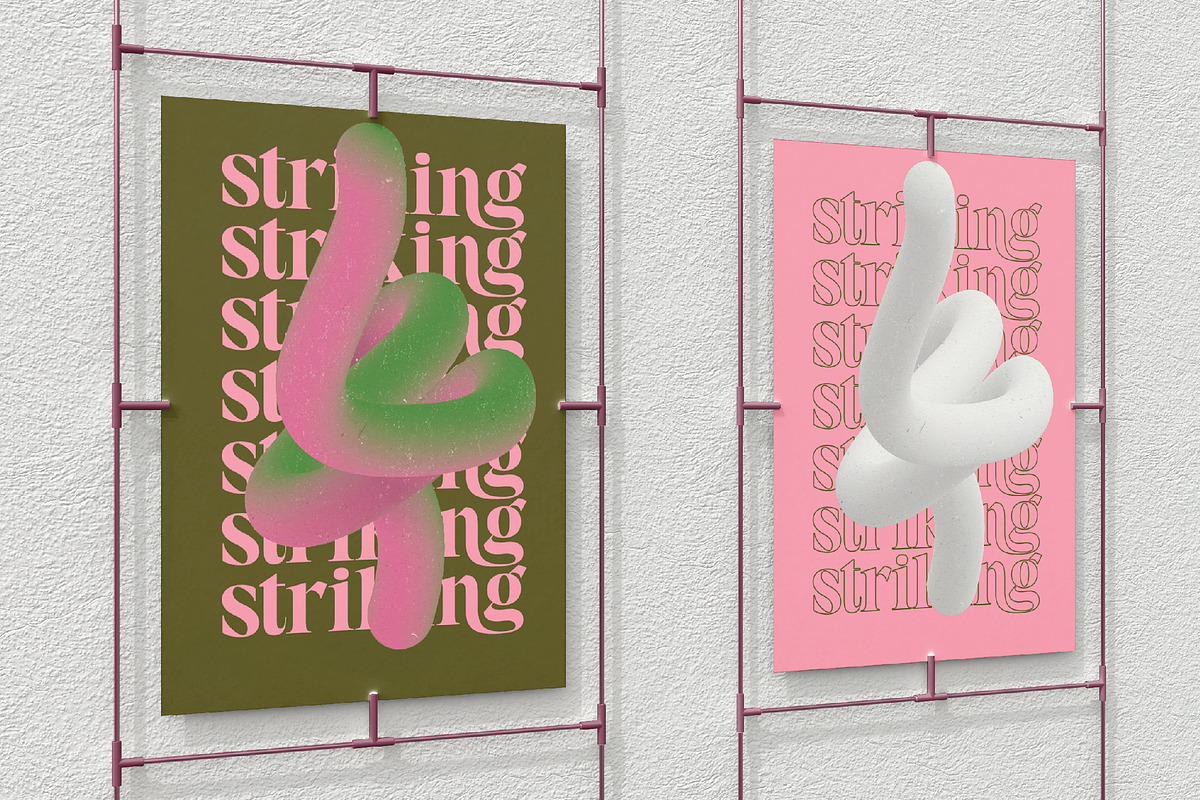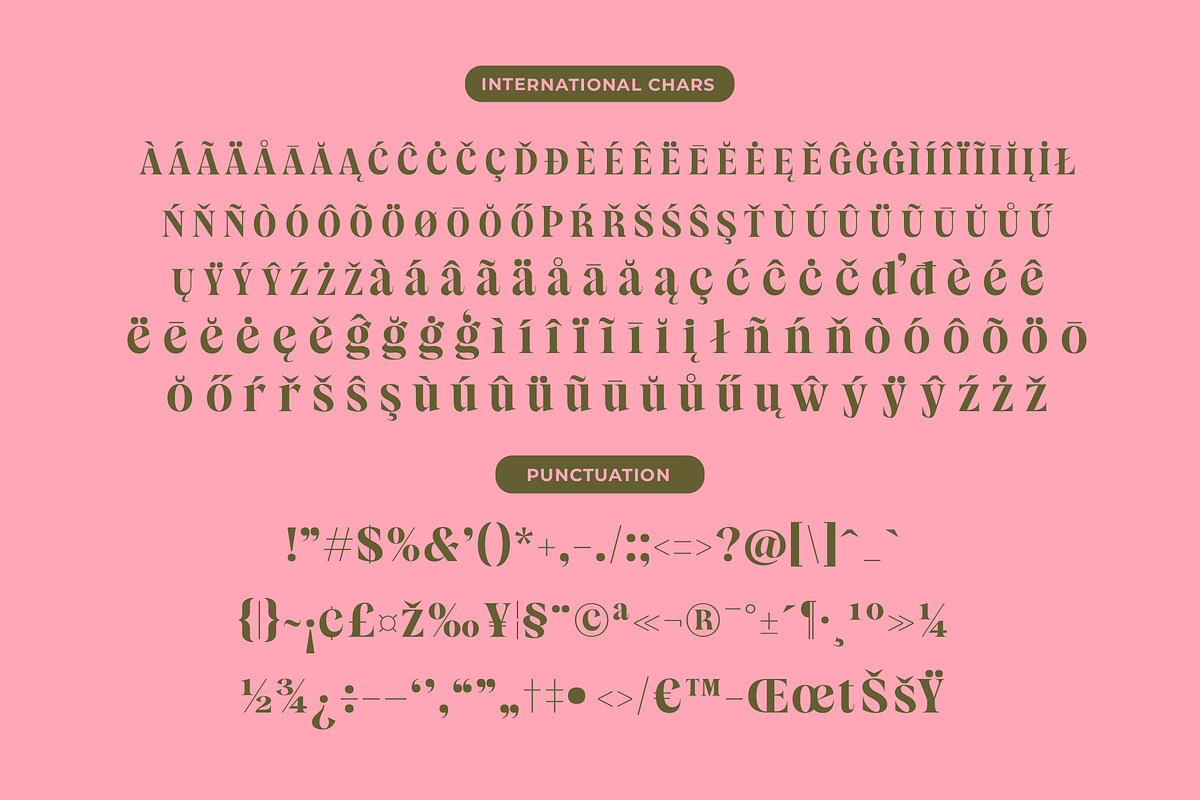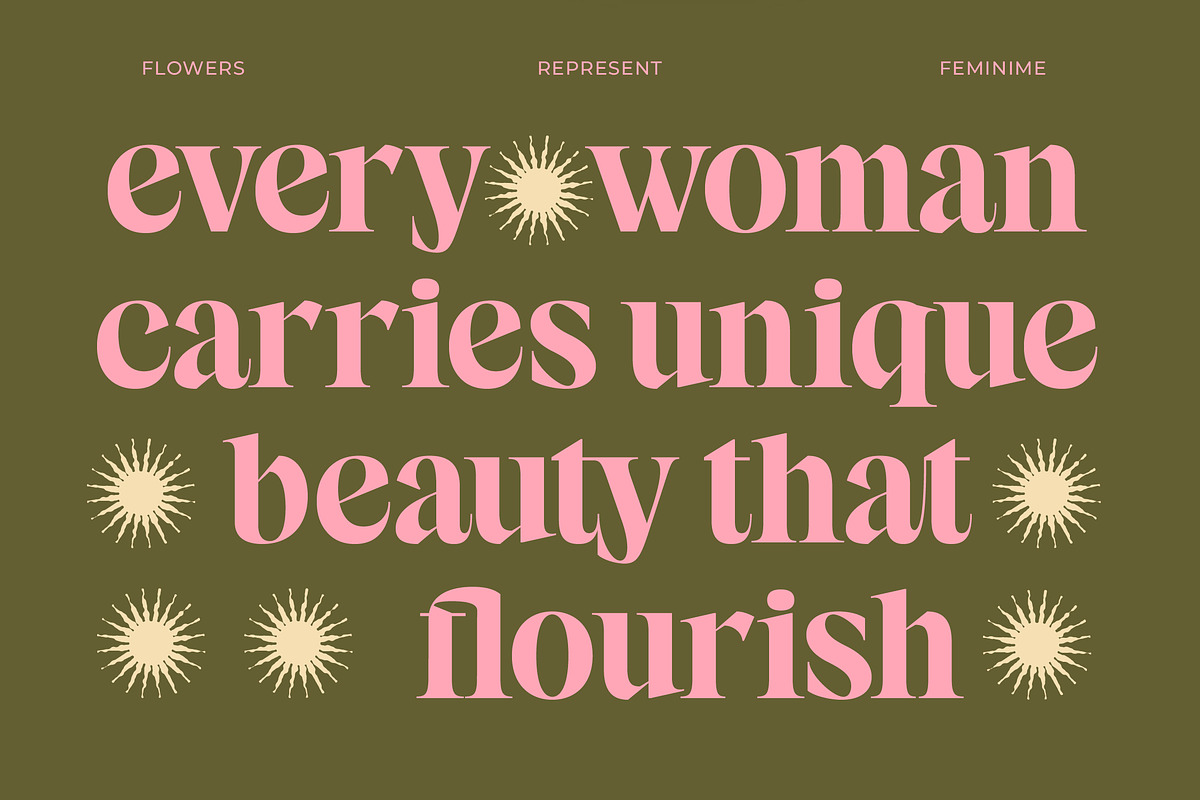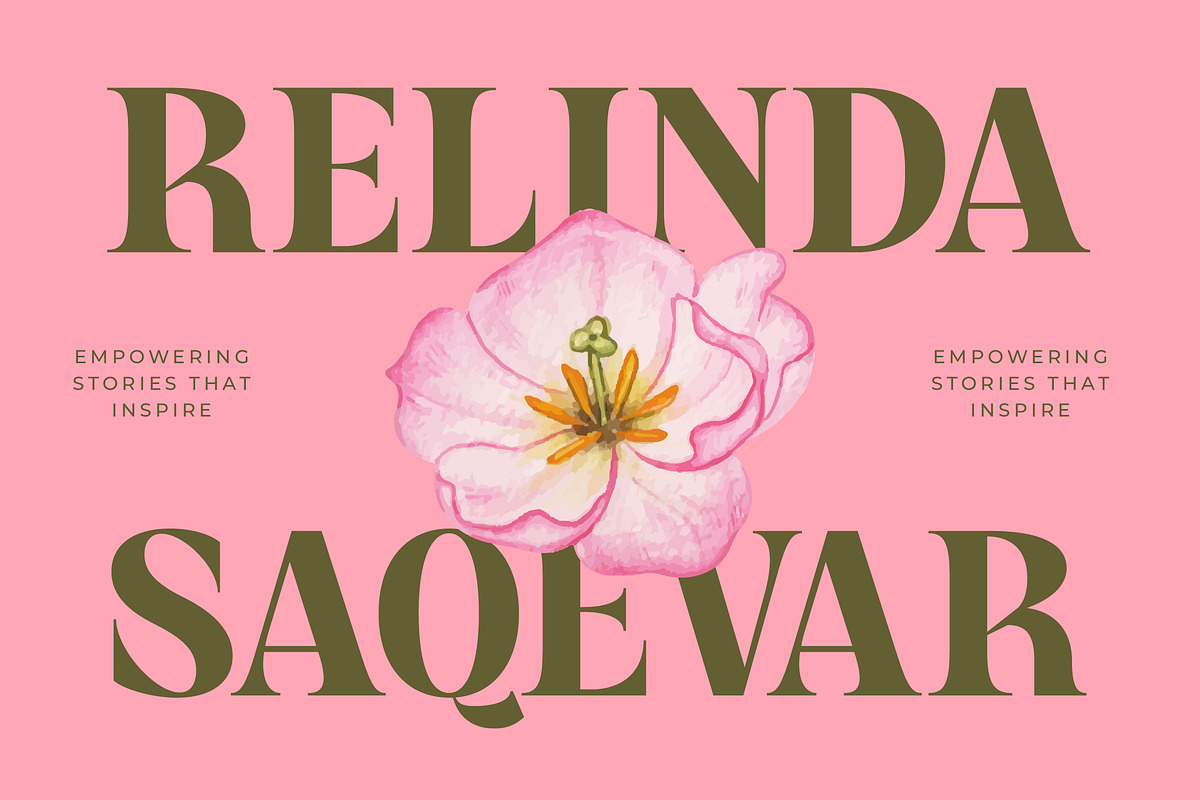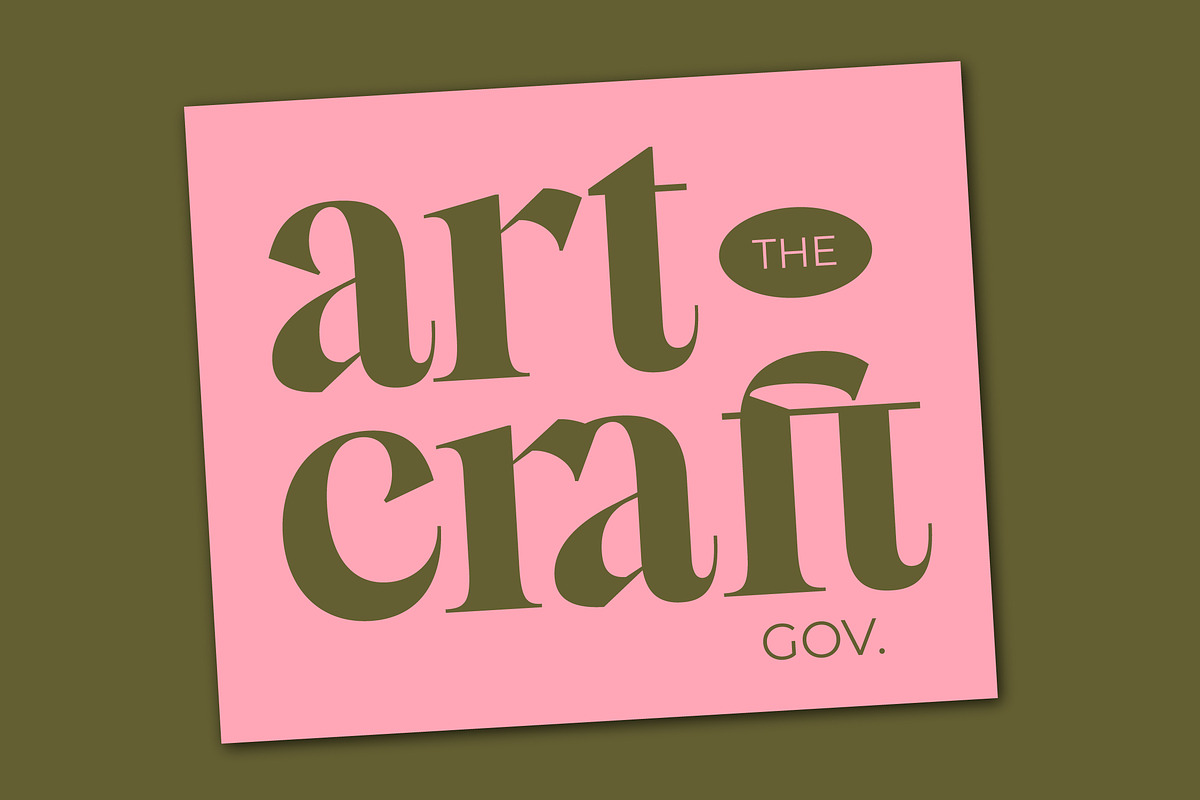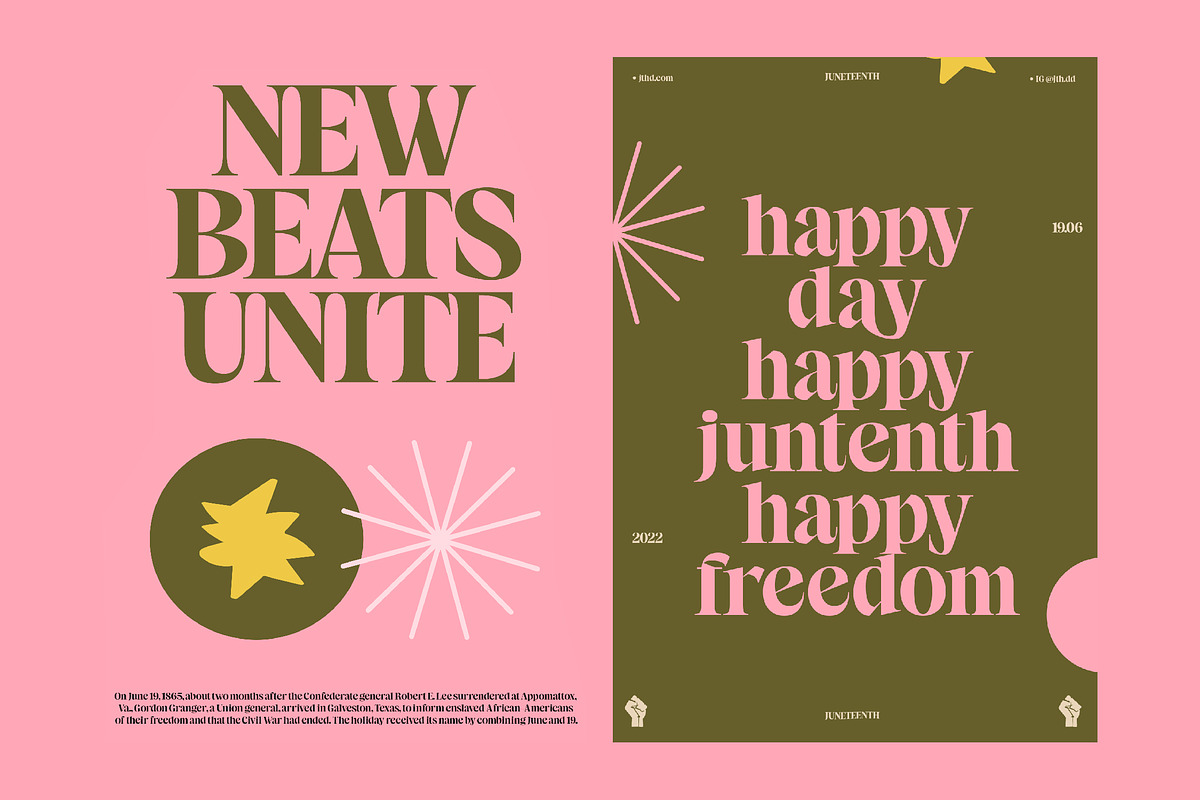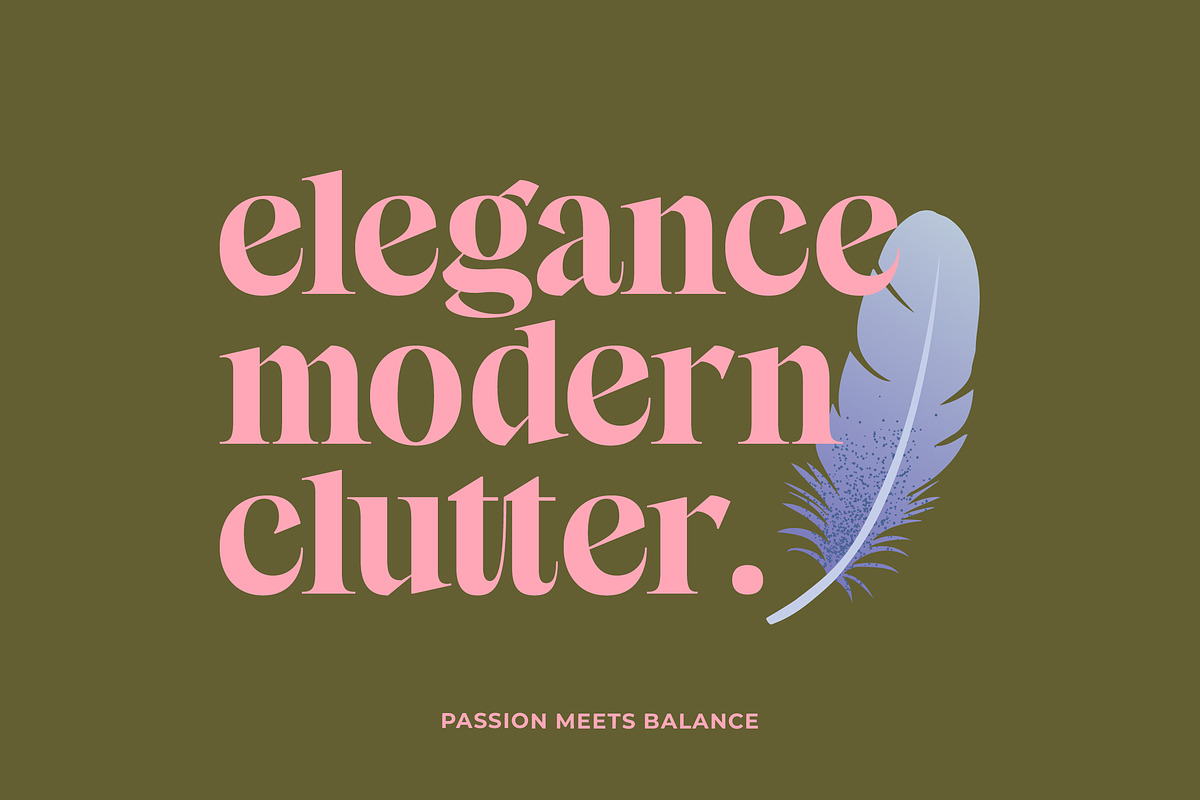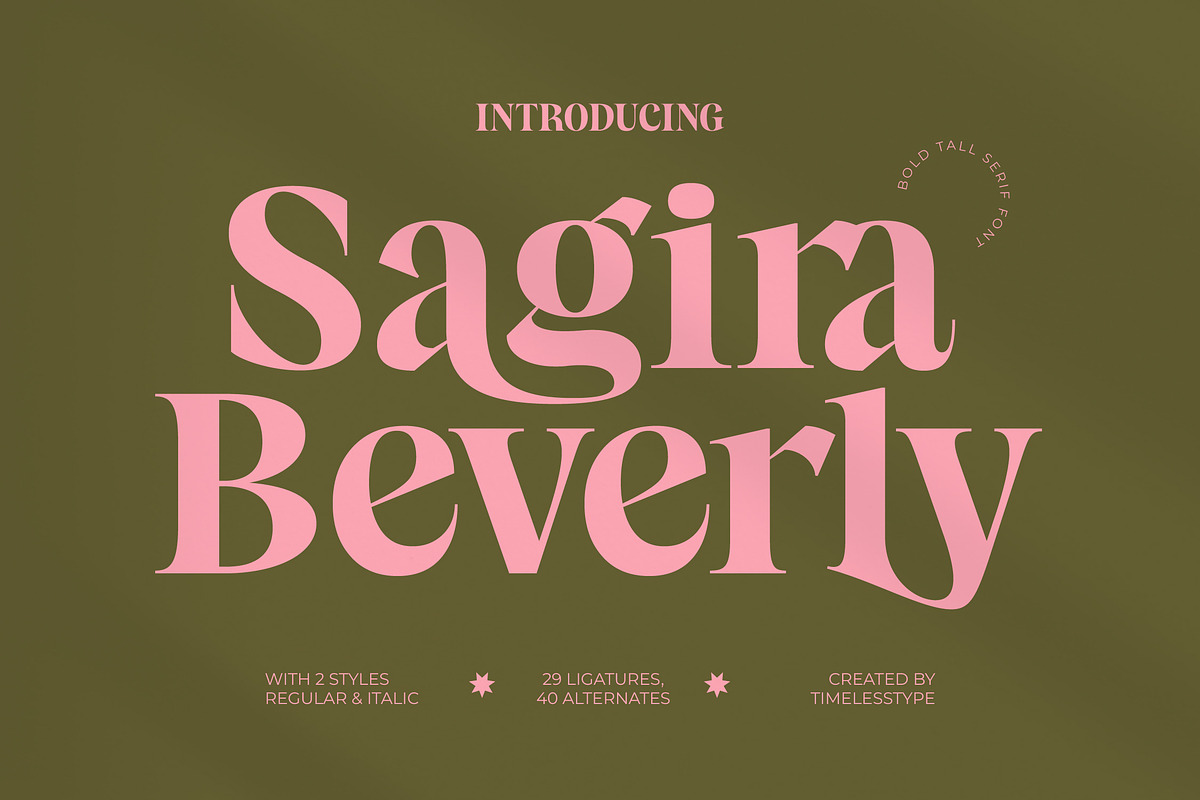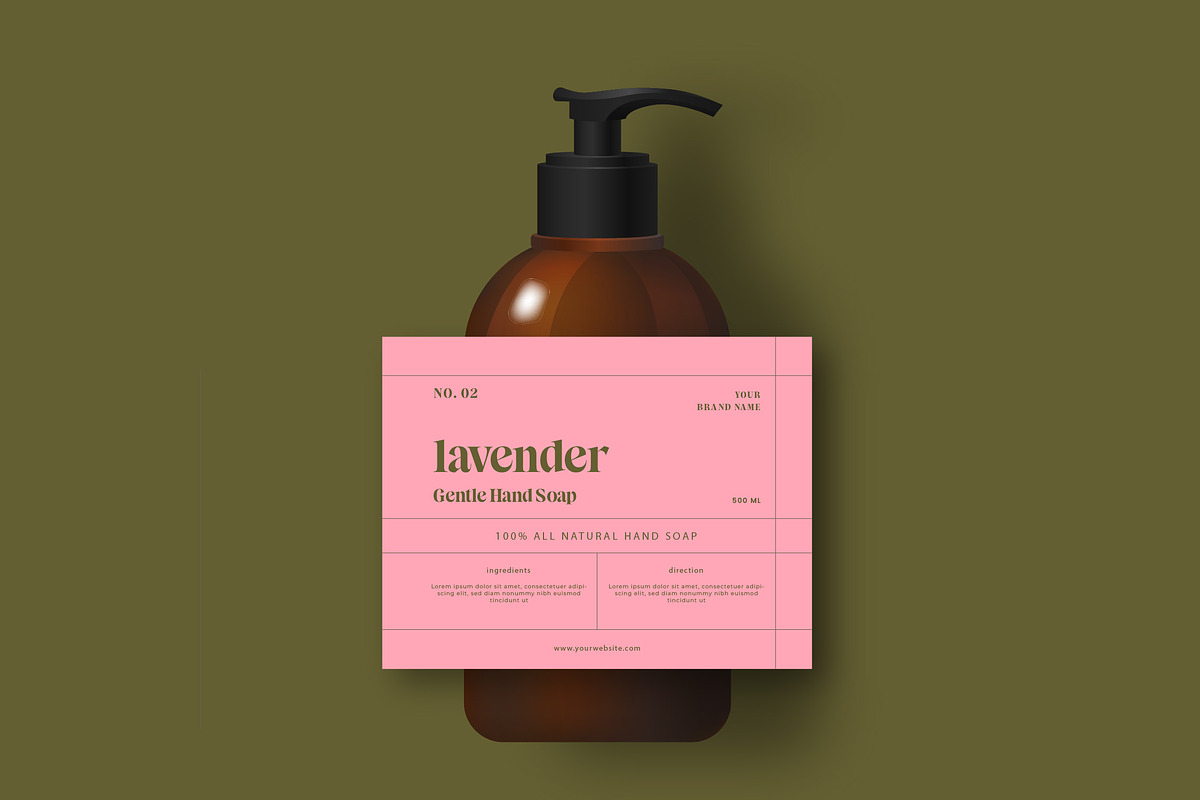
Sagira Beverly Modern Display Serif
Discover the unmatched elegance of Sagira Beverly, a font designed to command attention while maintaining a sophisticated grace. It is the ultimate choice for designers looking to infuse their projects with a sense of high-end luxury and timeless style.
Drawing inspiration from the golden era of editorial design, this typeface blends classic tall proportions with contemporary fluid curves. It evokes the atmosphere of a high-fashion atelier where every detail is crafted with precision and artistic intent.
This modern serif display typeface offers a striking luxury typography experience characterized by its high-contrast serif letterforms. Its bold presence ensures a powerful branding impact, making it a versatile editorial font that bridges the gap between vintage charm and modern aesthetics.
Perfectly aligned with the current modern serif trend, this typeface meets the demand for editorial display fonts that feel unique and bespoke. It stands out in a market saturated with minimalism by offering character-driven typography that feels curated and intentional.
Transform your creative vision into reality across logo design, premium branding, and sophisticated editorial layouts. It is equally at home in luxury packaging, romantic wedding stationery, or high-concept fashion magazine spreads.
The package includes both regular and italic styles, enriched with a stunning collection of ligatures and alternates to create custom looks. Extensive multilingual support and a full set of international characters ensure global usability for any professional project.